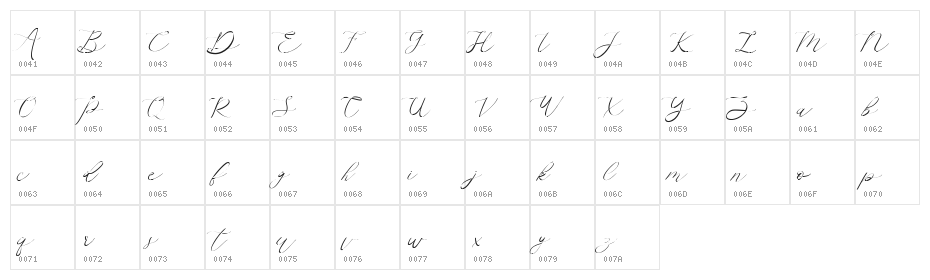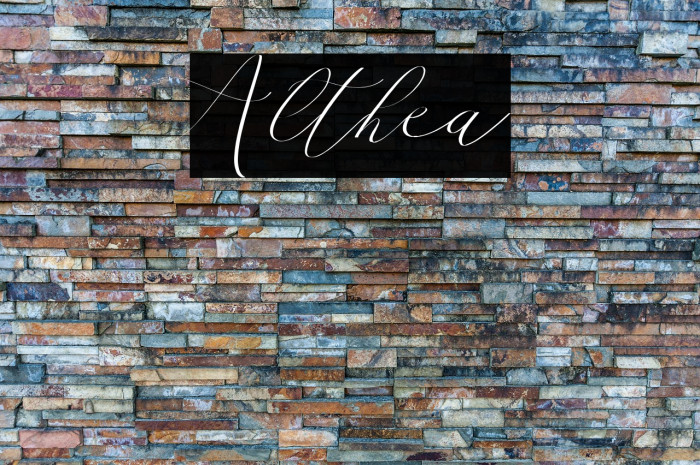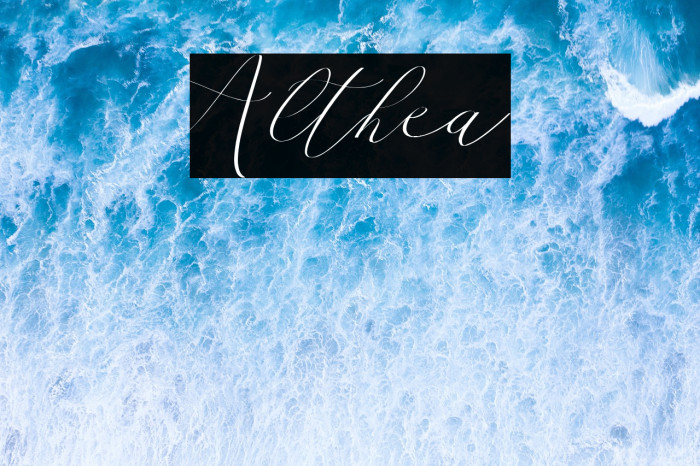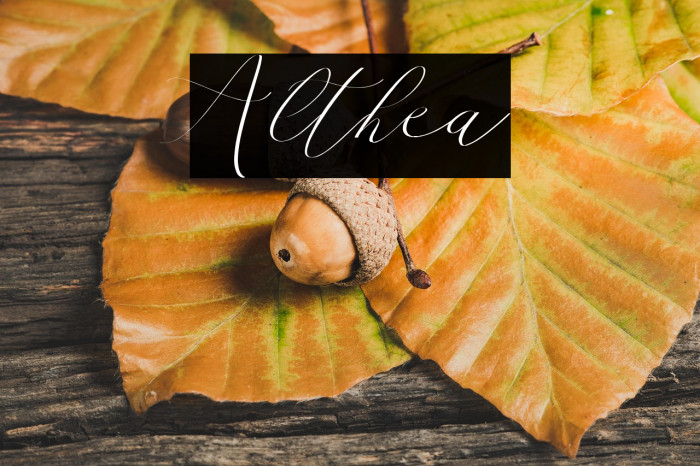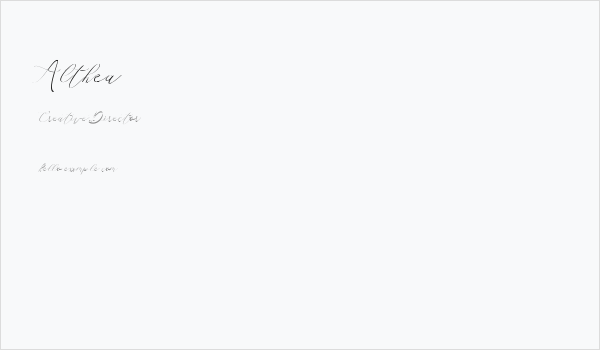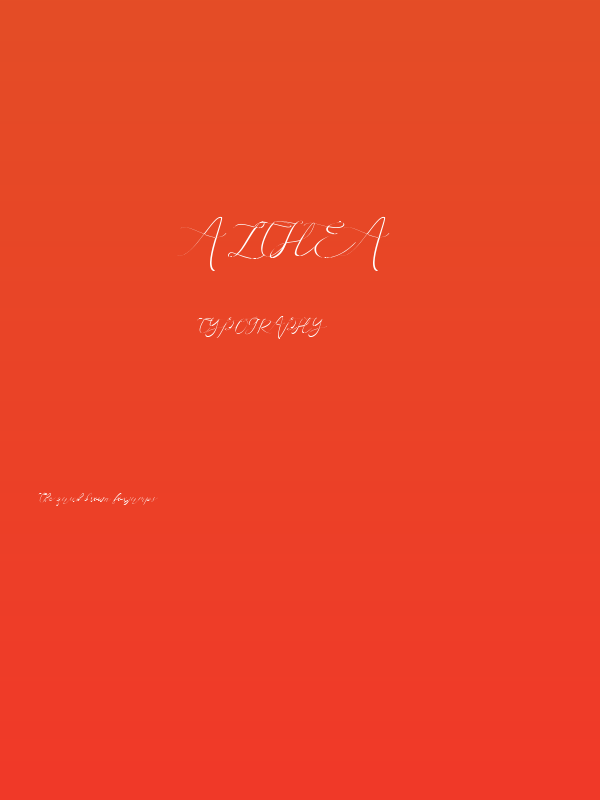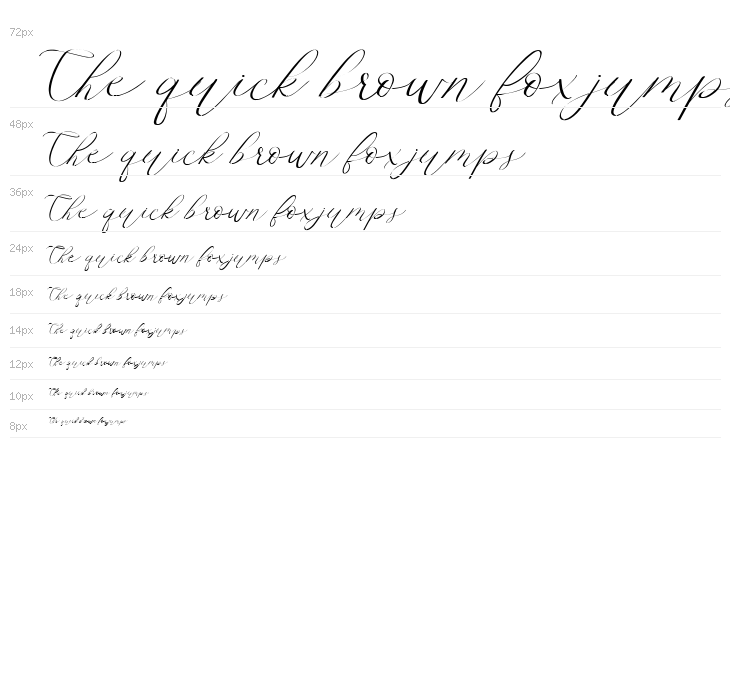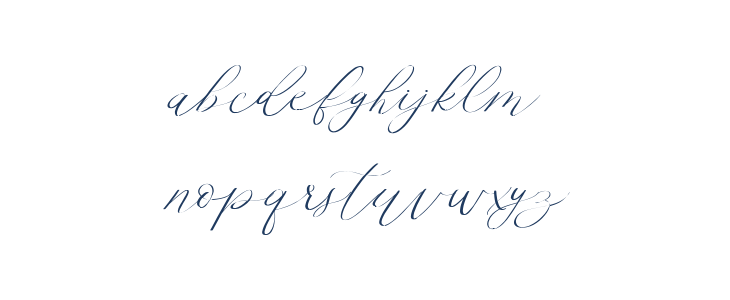
Althea Font
Althea Description
This elegant script font features flowing, interconnected letters with a delicate and sophisticated appearance. The strokes are thin and graceful, with a high degree of contrast between thick and thin lines, creating a sense of fluidity and movement. The uppercase letters are ornate, with sweeping curves and loops, while the lowercase letters maintain a consistent style, enhancing readability. The font exudes a sense of luxury and refinement, making it ideal for formal invitations, branding, and decorative purposes. Its intricate design and attention to detail make it stand out as a statement piece in any project.
Overall StyleElegant
Use CaseHeadlines, Invitations, Branding
Proposed ProjectsIdeal for wedding invitations, luxury branding, greeting cards, and decorative projects.